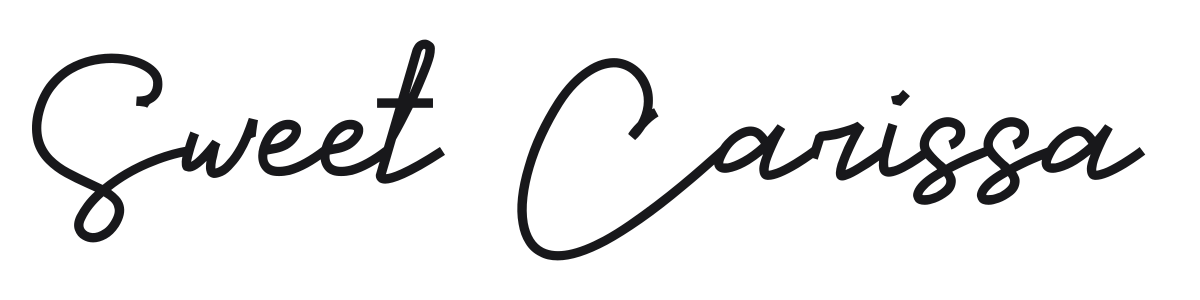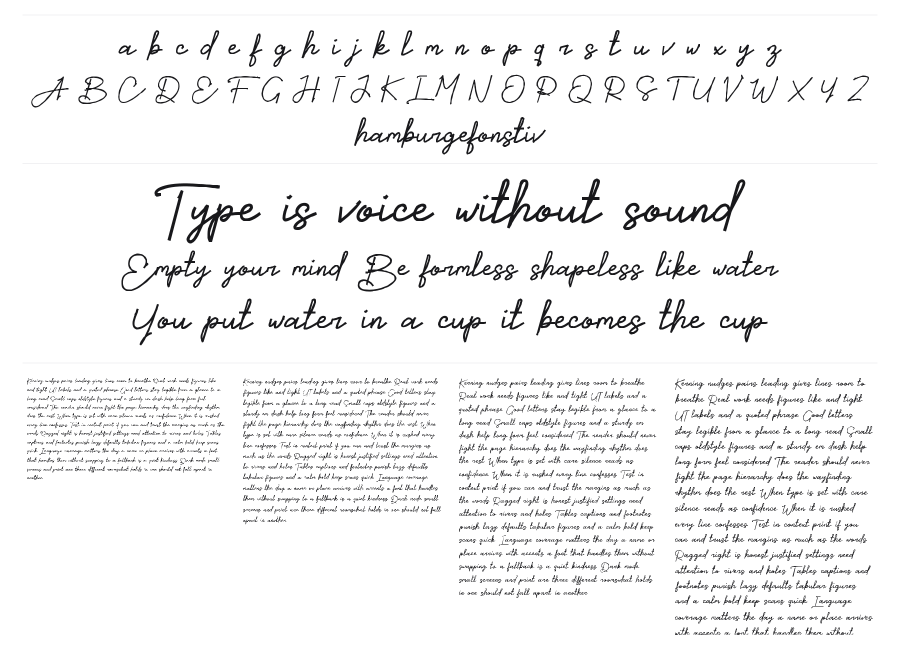
Sweet Carissa
Sweet Carissa is a flowing casual script with the relaxed confidence of a felt-tip pen in a steady hand. Continuous connected strokes and natural baseline bounce give it an organic warmth that works well on packaging, logos, and any project that needs a personal touch. The even weight and open loops keep it legible even at smaller display sizes.